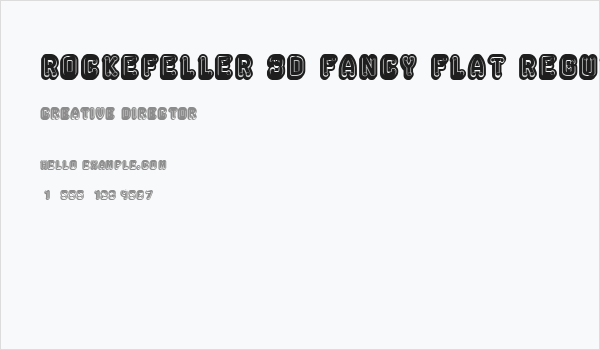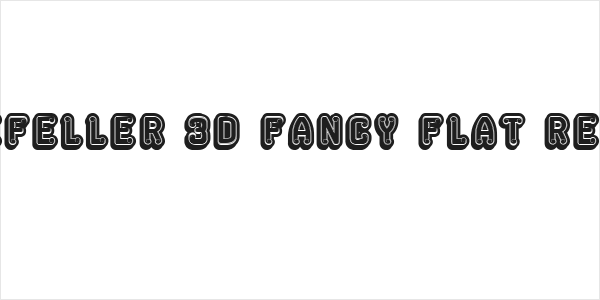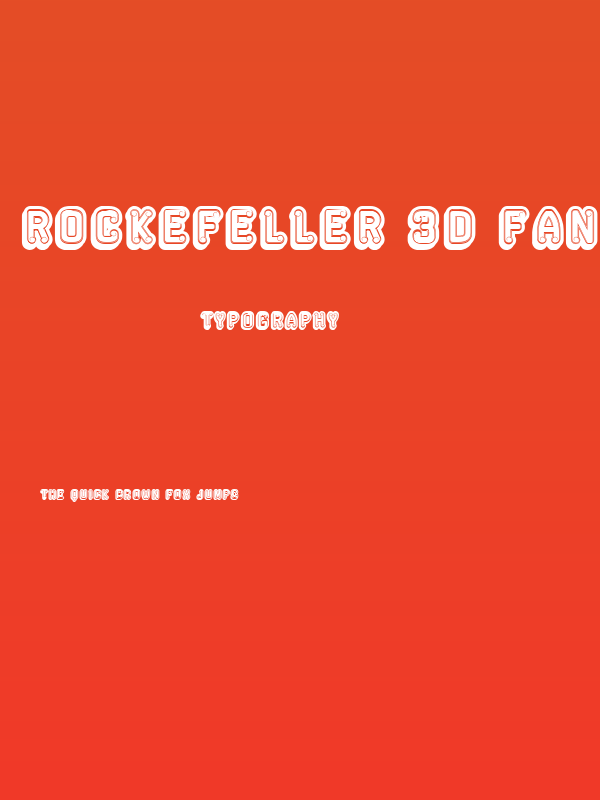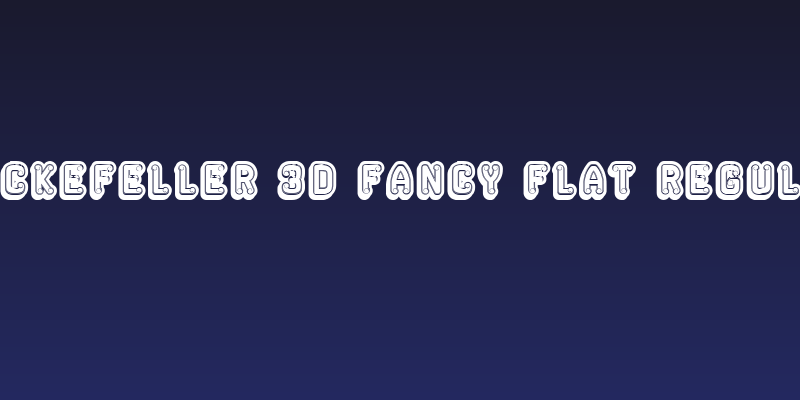
Rockefeller 3D Fancy Flat Regular Font
Rockefeller 3D Fancy Flat Regular Description
This font features a bold, three-dimensional appearance with a flat, decorative style. Each character is outlined with a thick black border, creating a striking contrast against the inner white space. The design incorporates rounded edges and playful elements, giving it a unique and eye-catching look. The font maintains a consistent thickness throughout, enhancing its bold presence. The characters are evenly spaced, ensuring readability while maintaining its decorative flair. This font is ideal for projects that require a standout, artistic touch, such as posters, logos, or headlines.
| Proposed Projects | Ideal for posters, logos, headlines, and any project needing a bold, artistic touch. |